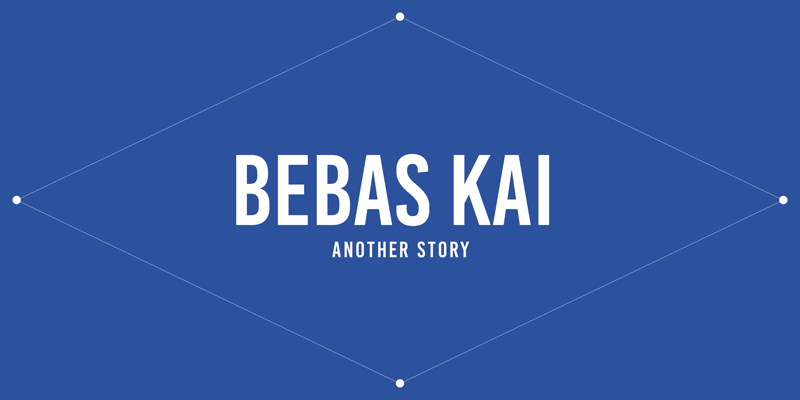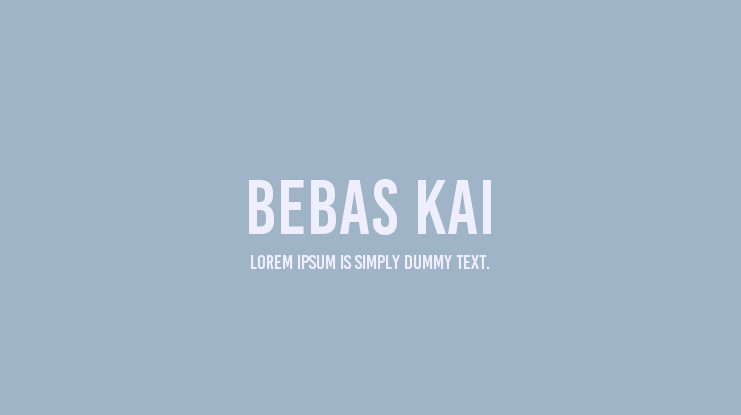
Bebas Kai Font
Bebas Kai Font is the top rated font in google fonts. This is highly utilized for pairing function. This typeface shares similarity with montserrat font. This font is a beautiful collection specifically designed for easy and comfy on-display assessment.
It’s orderly, has amusement of the extraordinary detail. It furthermore components four hundred glyphs and a hundred trade characters. The font includes all characters in every uppercase and lowercase letters. Now, you could have your private desired serif font and it is able to or may not appear on our listing, however, we recommend taking within the path of getting a test the alternatives.